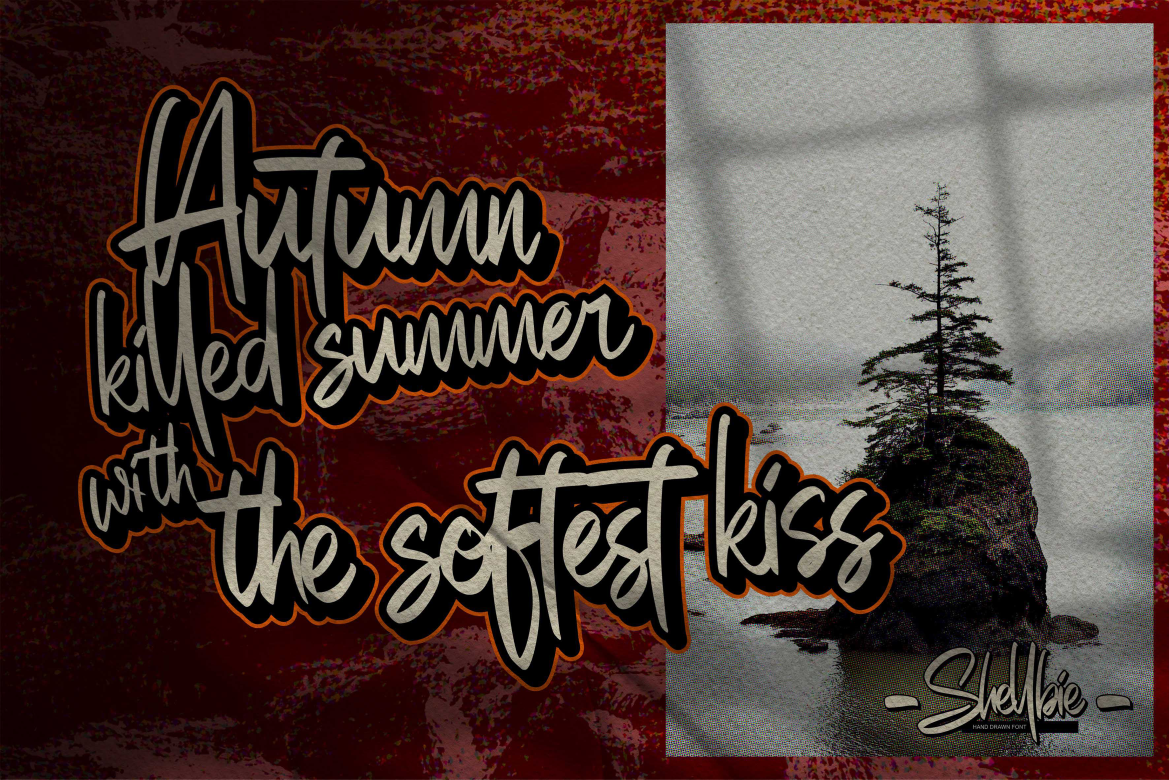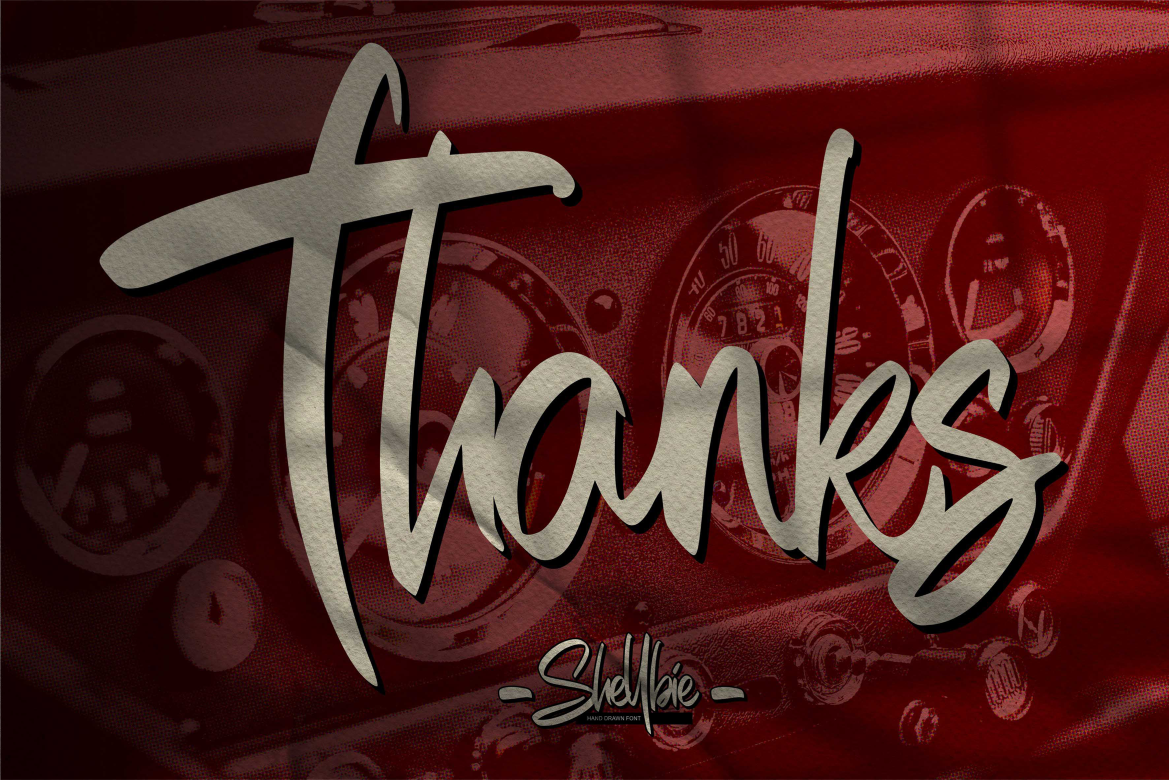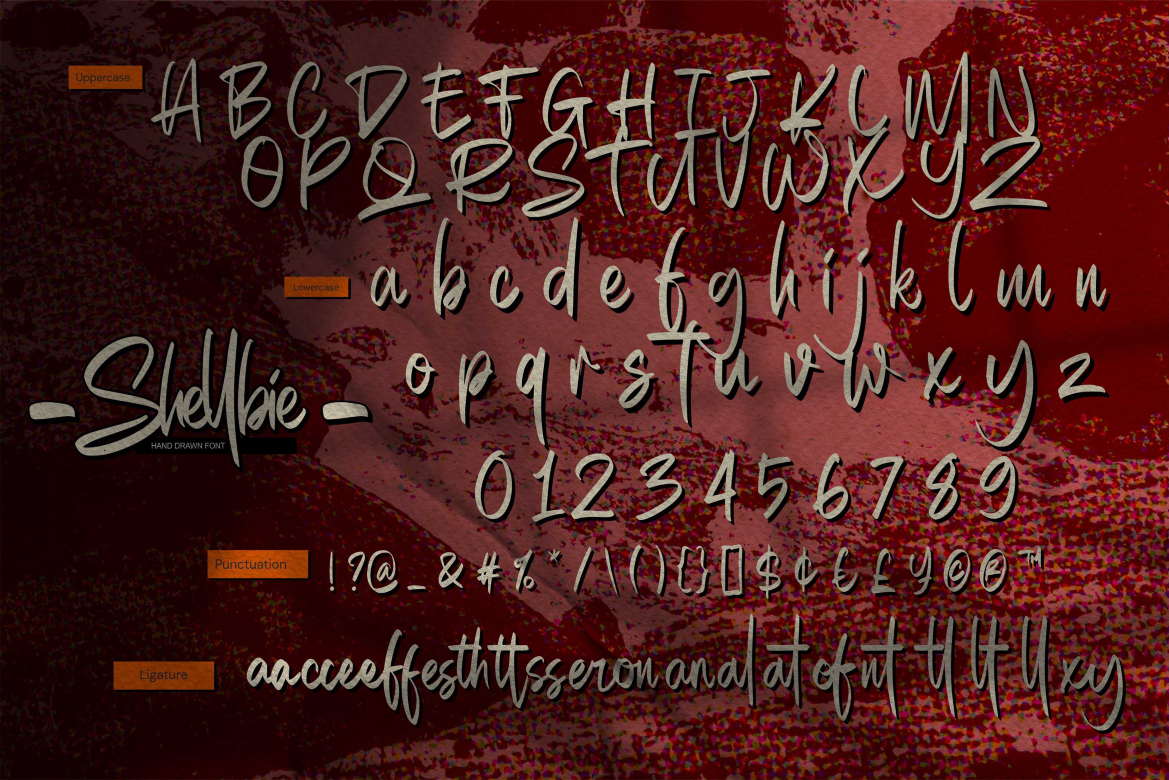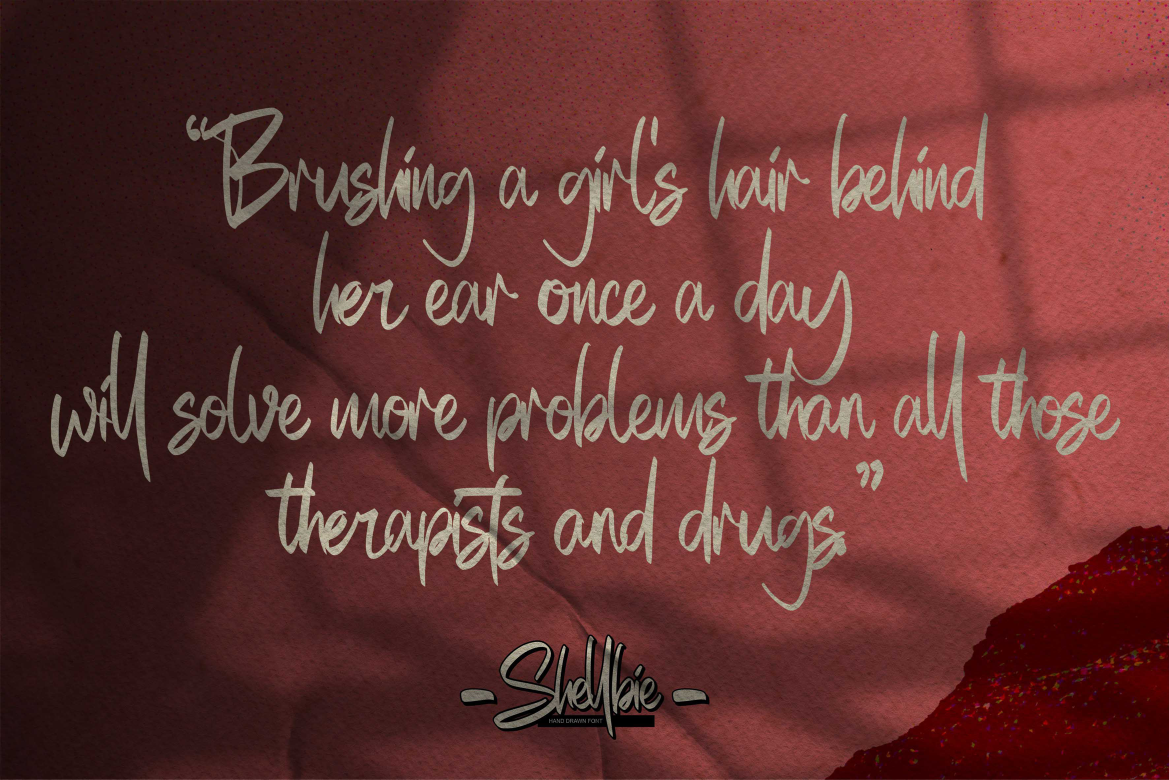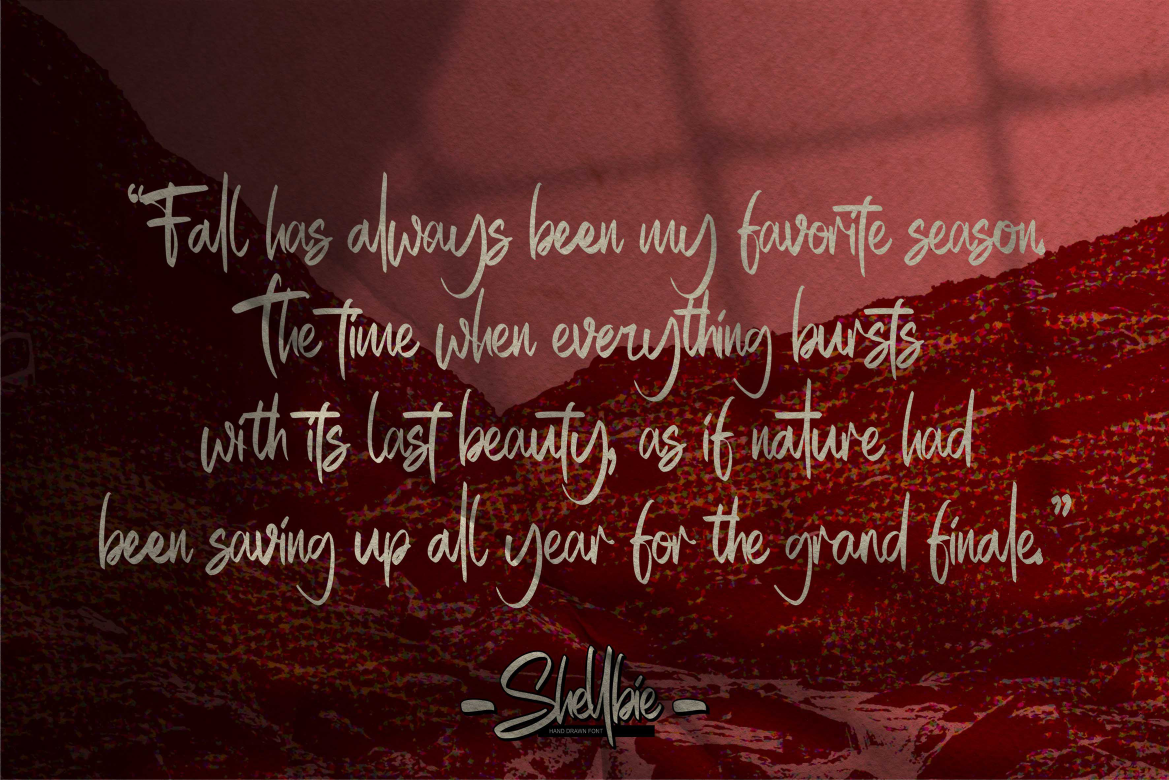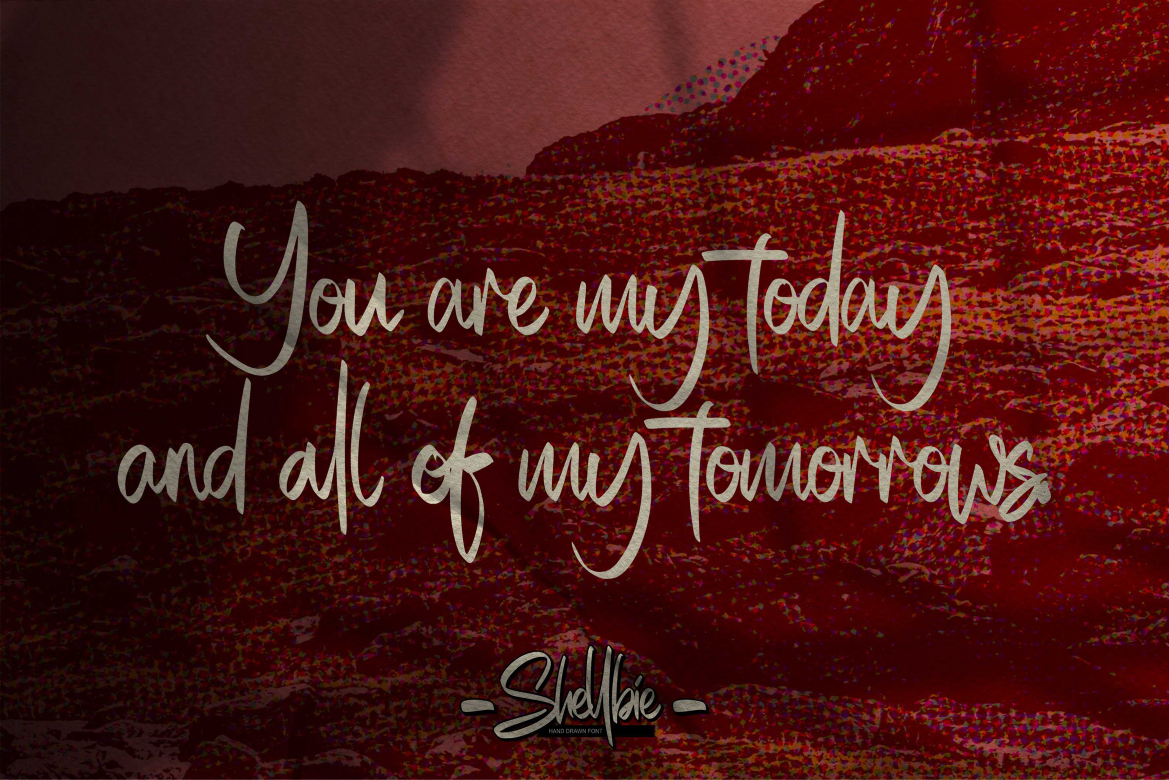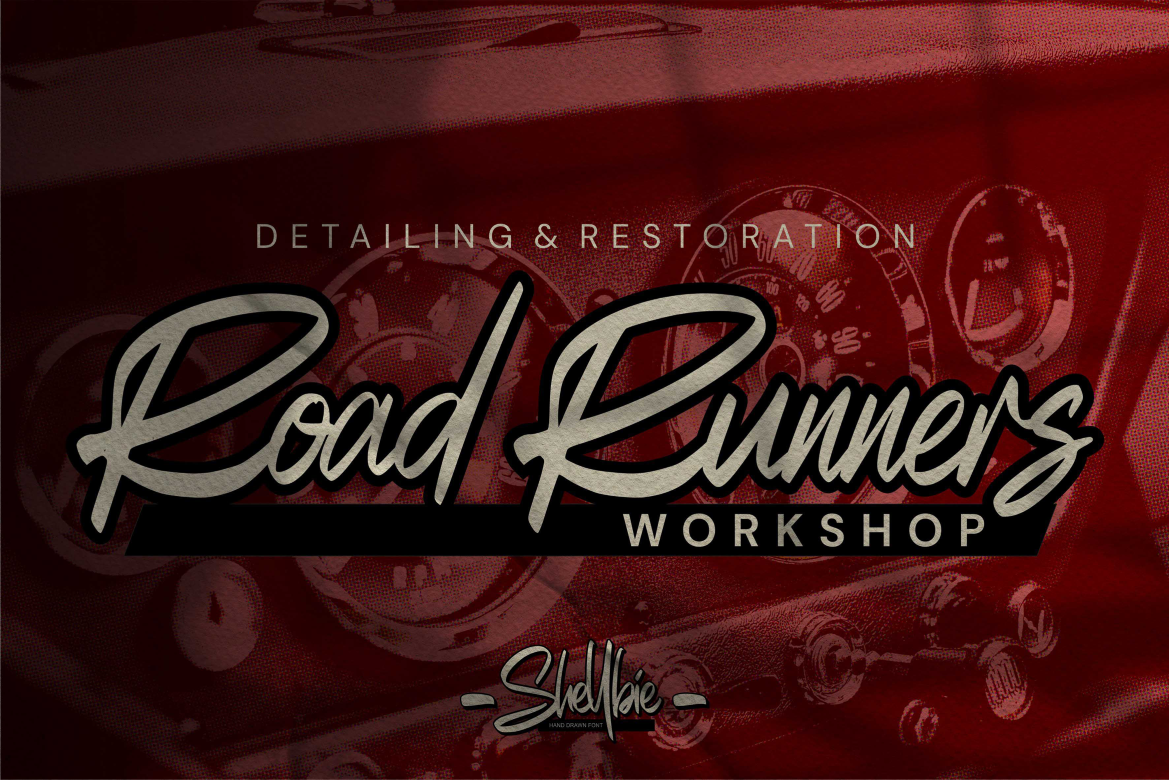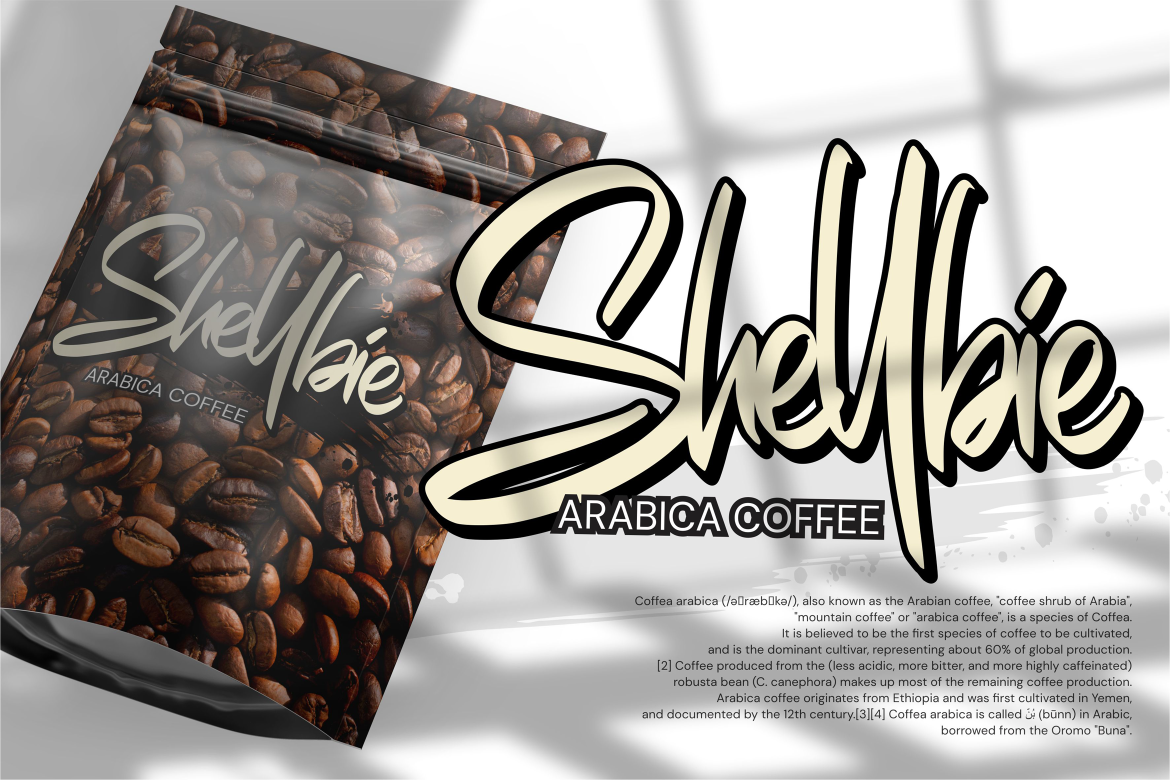
- Shellbie – Hand Drawn Script Font
Shellbie – Hand Drawn font with a clean style and dramatic movement. Crafted manually with love and passion, This font is great for your next creative project such as logos, printed quotes, invitations, cards, product packaging, headers, Logotype, Letterhead, Poster, Label, and etc.
Shellbie Perfect for designs, branding projects, Logo design,Quotes product packaging and another Project that require natural font.
- Ligatures